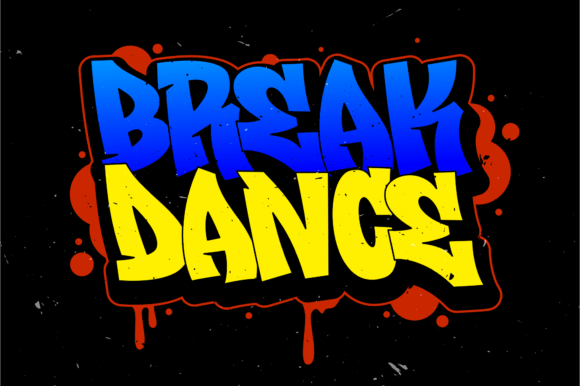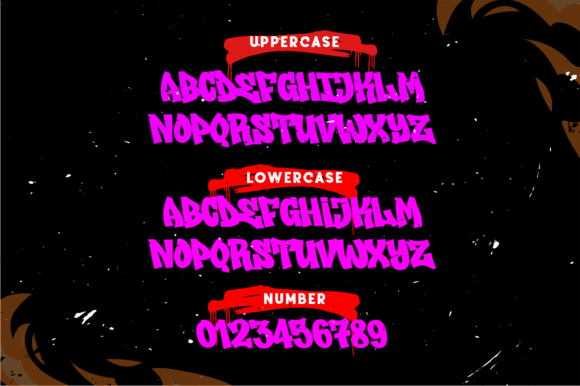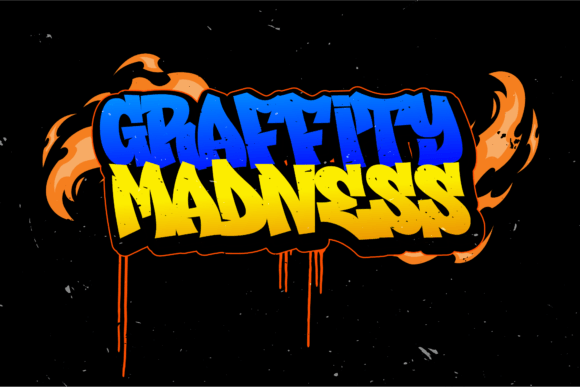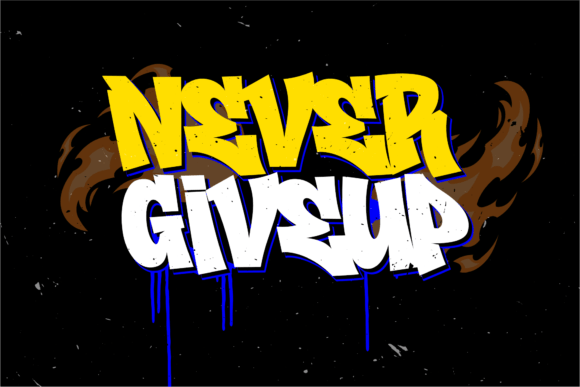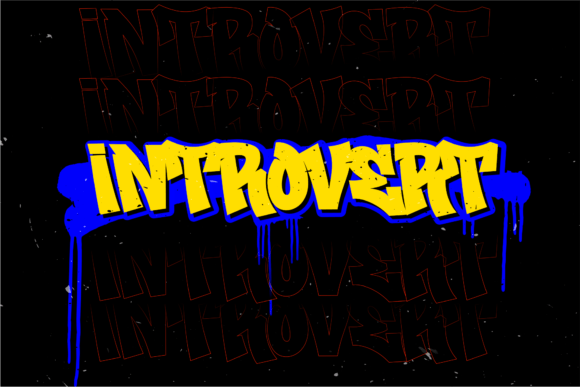
Introducing Heavy Dream Font: The Ultimate Graffiti Font for Bold Designs
Are you a designer or crafter looking for a font that can add a touch of street and urban style to your designs? Look no further than the Heavy Dream Font. This graffiti font is designed to make a statement with its bold and strong style, perfect for creating eye-catching designs that demand attention.
What is Heavy Dream Font?
Heavy Dream Font is a type of graffiti font that is characterized by its bold and strong style. It is designed to mimic the look of street art and urban graffiti, making it perfect for designers who want to add a touch of edginess to their designs. The font comes with a range of features that make it easy to use and customize, including a wide range of letters, numbers, and punctuation marks.
Key Features of Heavy Dream Font
- Bold and Strong Style: The Heavy Dream Font is designed to be bold and strong, making it perfect for creating eye-catching designs that demand attention.
- Graffiti Style: The font is designed to mimic the look of street art and urban graffiti, making it perfect for designers who want to add a touch of edginess to their designs.
- Wide Range of Characters: The font comes with a wide range of letters, numbers, and punctuation marks, making it easy to create complex designs.
Design Ideas Using Heavy Dream Font
The Heavy Dream Font is a versatile font that can be used for a wide range of design projects. Here are a few ideas to get you started:
- Streetwear Branding: Use the Heavy Dream Font to create bold and eye-catching branding for streetwear companies.
- Urban Posters: Use the font to create bold and eye-catching posters for urban events and promotions.
- Graffiti Art: Use the font to create realistic graffiti art that mimics the look of street art.
- Typography Designs: Use the font to create bold and eye-catching typography designs that showcase your creativity.
- Experiment with Different Colors: The Heavy Dream Font looks great in a wide range of colors, so don’t be afraid to experiment and find the perfect color for your design.
- Use it with Other Fonts: The Heavy Dream Font can be used in combination with other fonts to create interesting and unique designs.
- Pay Attention to Kerning: Make sure to pay attention to kerning when using the Heavy Dream Font, as it can make a big difference in the overall look of your design.
The Heavy Dream Font is a powerful and versatile font that is perfect for designers and crafters who want to add a touch of street and urban style to their designs. With its bold and strong style, wide range of characters, and ease of use, it’s the perfect font for creating eye-catching designs that demand attention. So why wait? Download the Heavy Dream Font today and start creating bold and amazing designs!